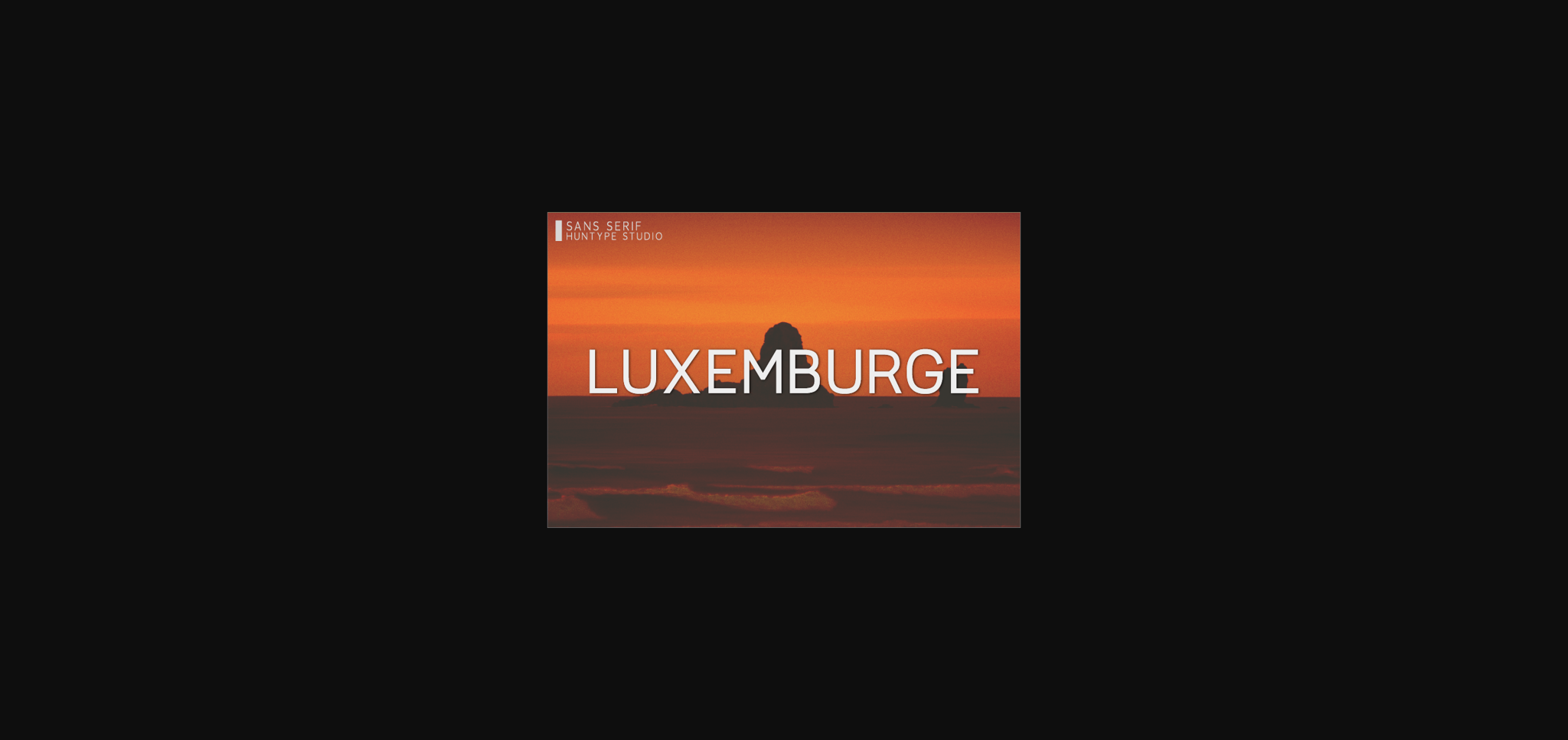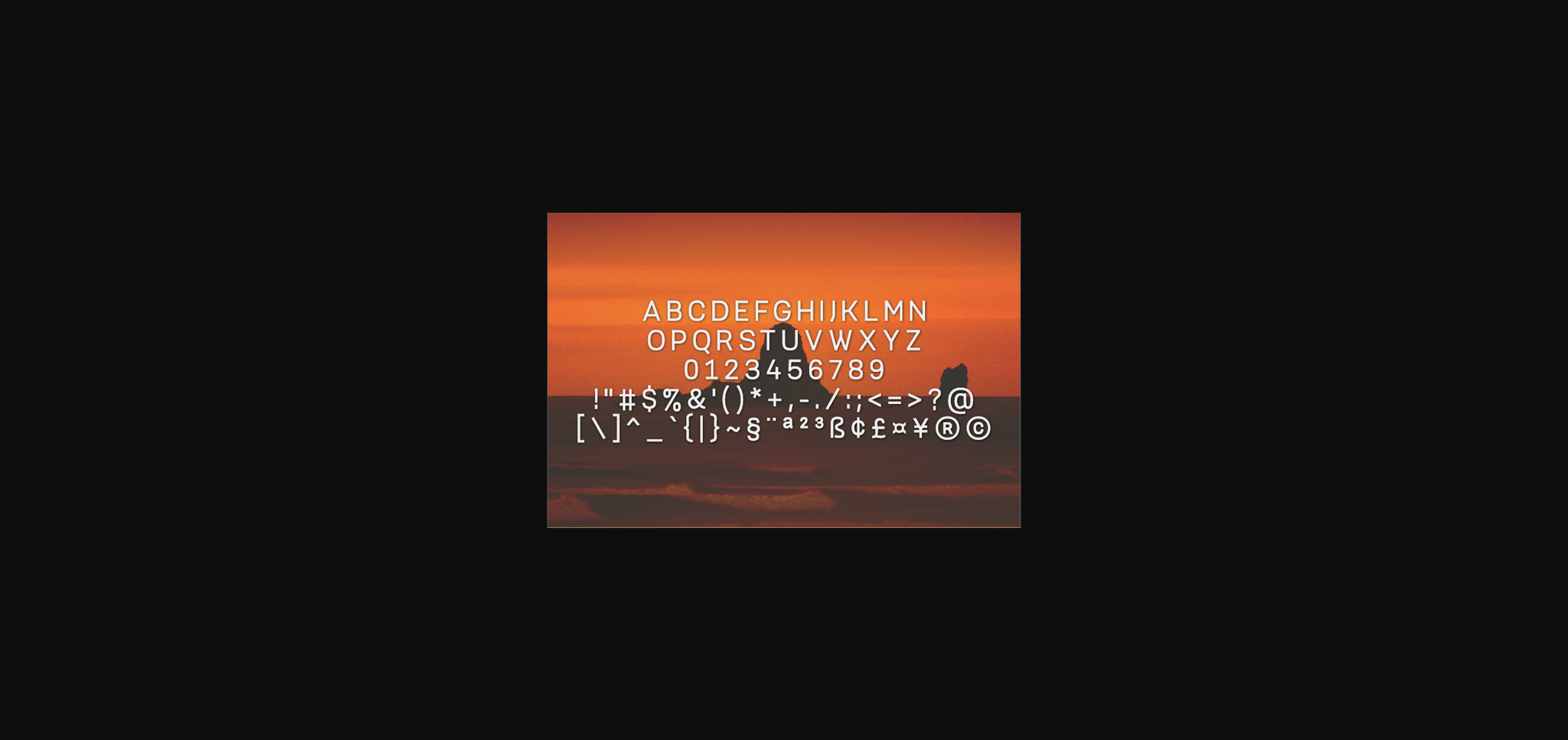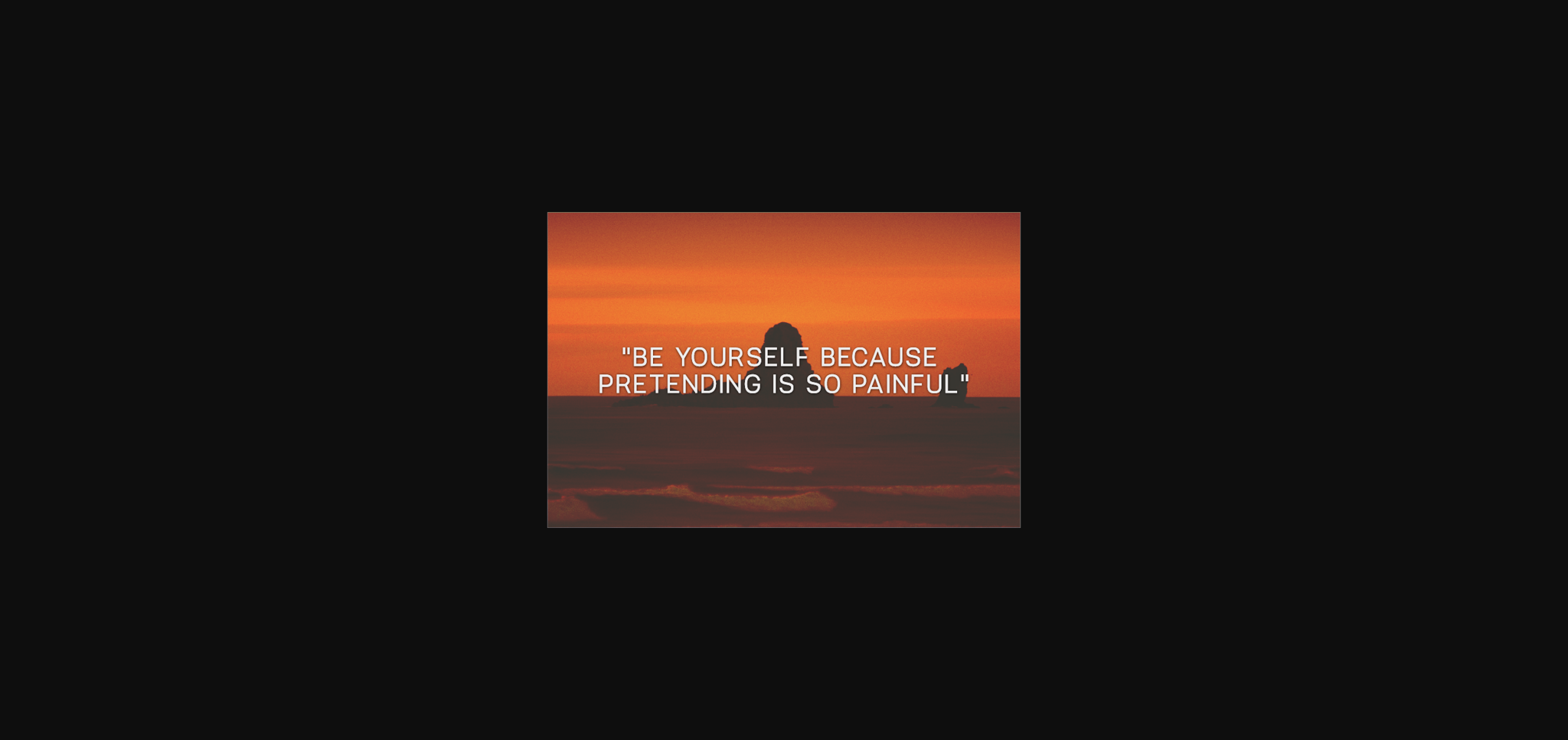
Luxemburge Font
About Luxemburge Font
Luxemburge is a modern and clean sans serif font that is versatile and looks great in just about any context. With smooth and clean lines, and just a touch of contrast, Luxemburge works beautifully for logos, branding, web headings and much more.